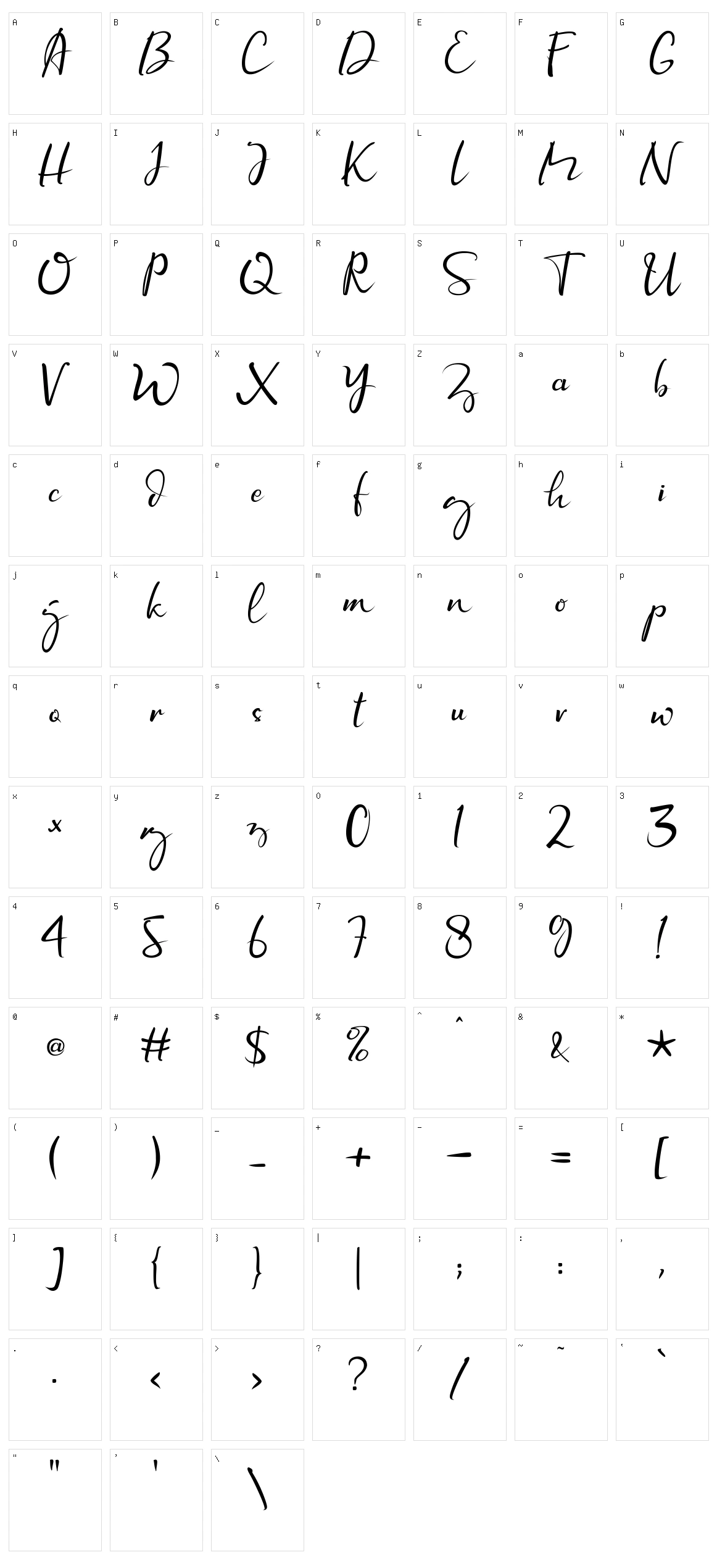
The free font Newyorka Night is carefully designed by Agus Diantoro, showcasing a thoughtful balance of creativity and usability and falls under the Script font style. When you download the ZIP file, it contains only 49.89 KB of font files, making it lightweight and quick to download. Please review the license details below to understand permitted usage and distribution rights. If license information is not available, we recommend using this font for personal projects only or contacting the author directly for commercial usage permissions.